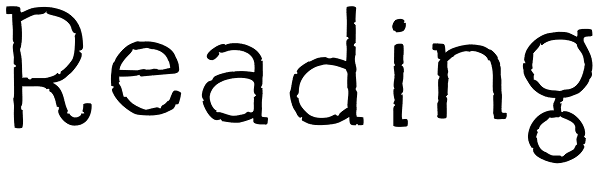
Reading
Reading is fun; legible with a playful wiggle, a bit of texture, and a lively set of double-letter ligatures. Reading wants to be read aloud and sounded out - lightened by comic relief and sweetened by a bit of style. The upper case is relatively...